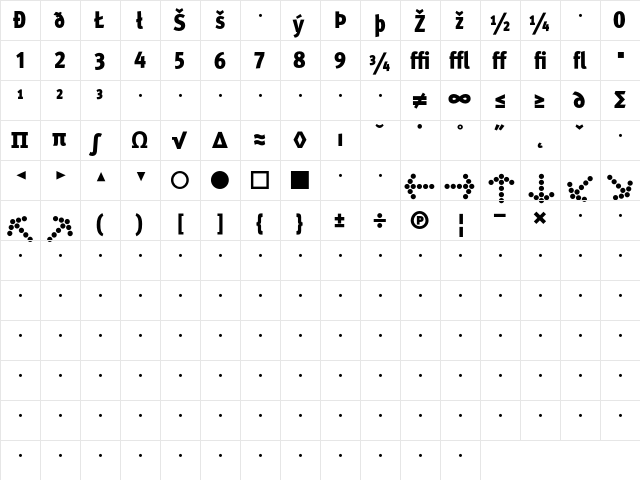
MetaCondBlack Expert
Design Context for MetaCondBlack Typeface
MetaCondBlack takes a measured approach to typography — its balanced proportions and neutral character make it a reliable workhorse for both digital and print work. The condensed width makes it efficient for tight spaces without sacrificing legibility.